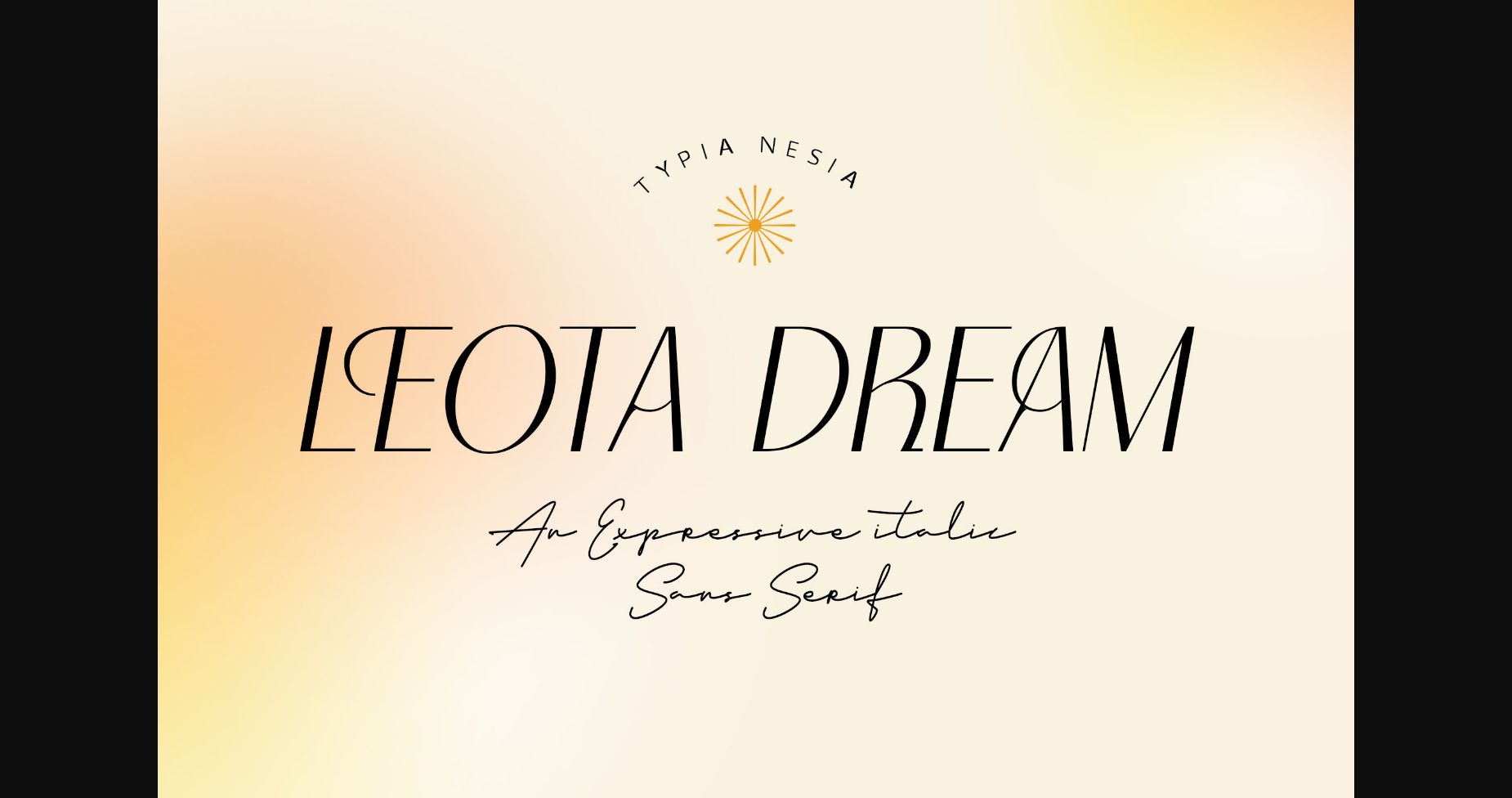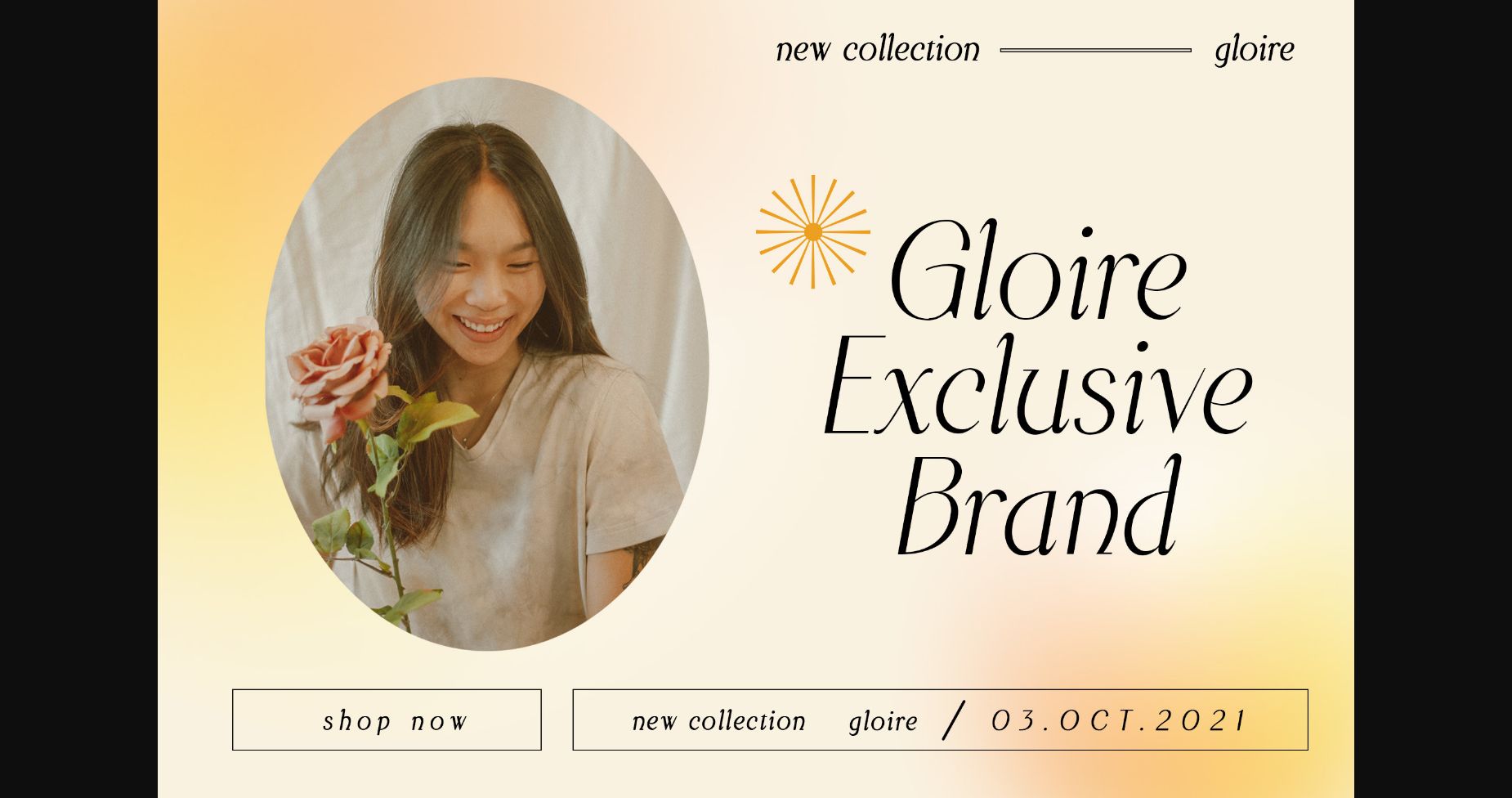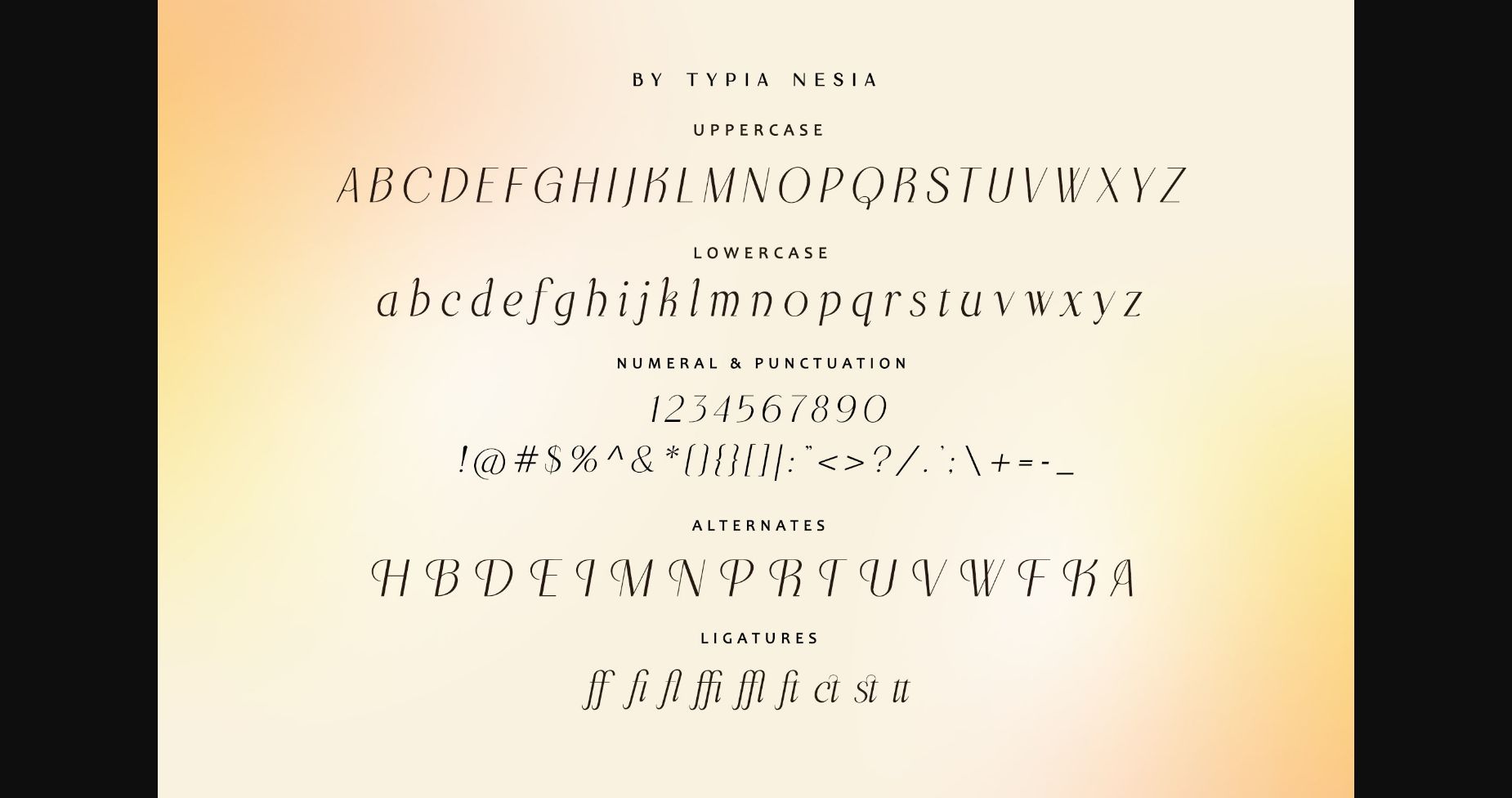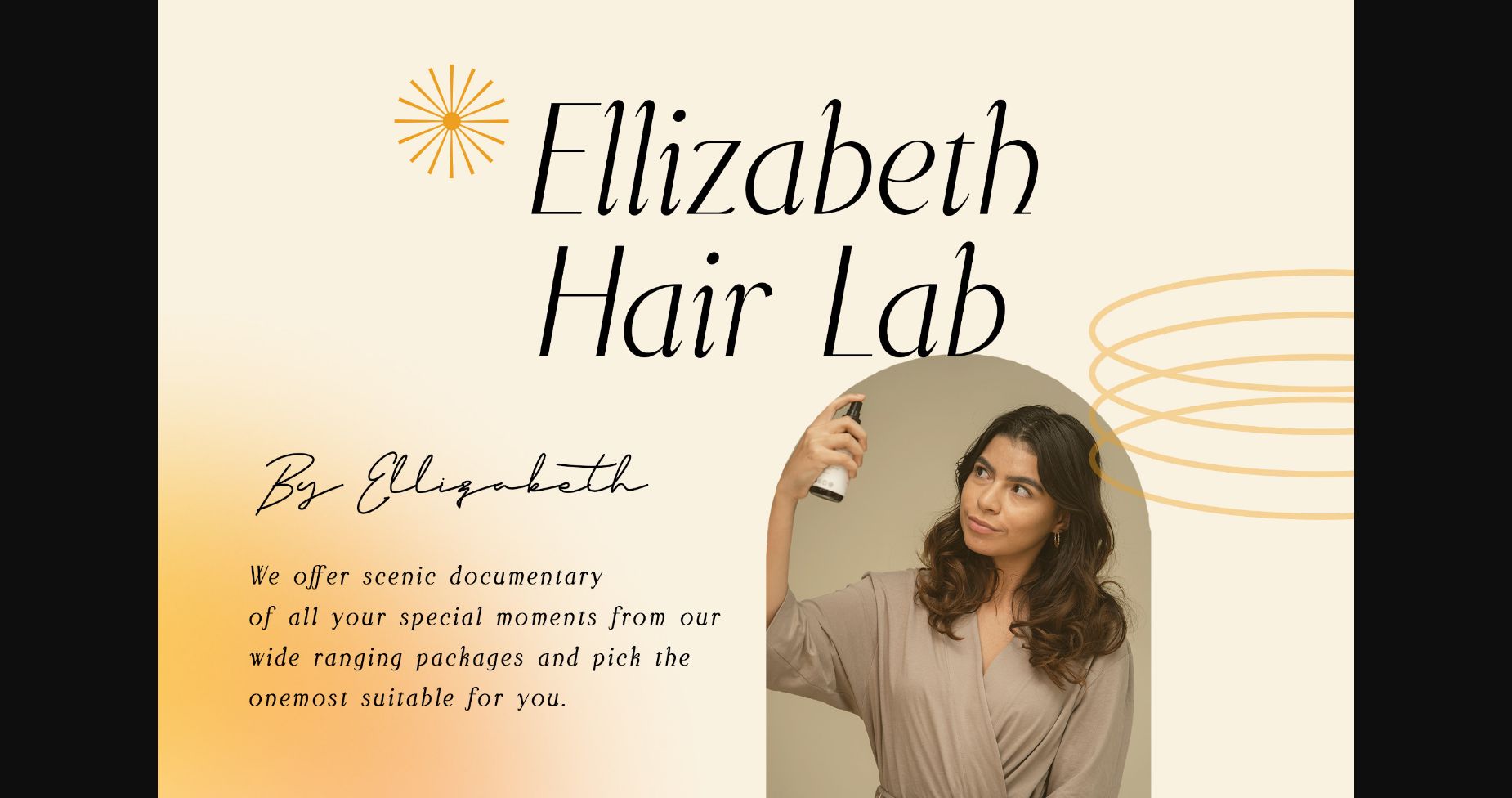
About Leota Dream Font
Leota Dream is an elegant and delicate sans serif font. It will add a luxury spark to any design project that you wish to create! This font is PUA encoded which means you can access all of the amazing glyphs and ligatures with ease!